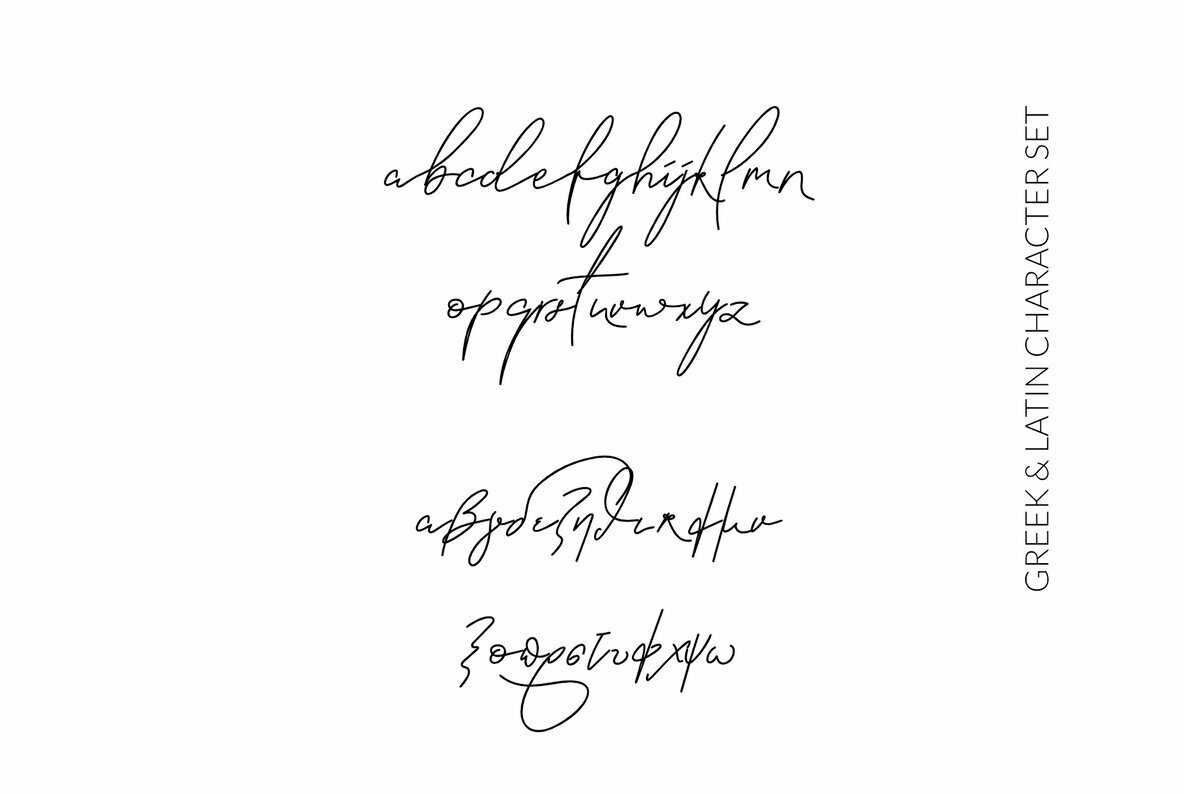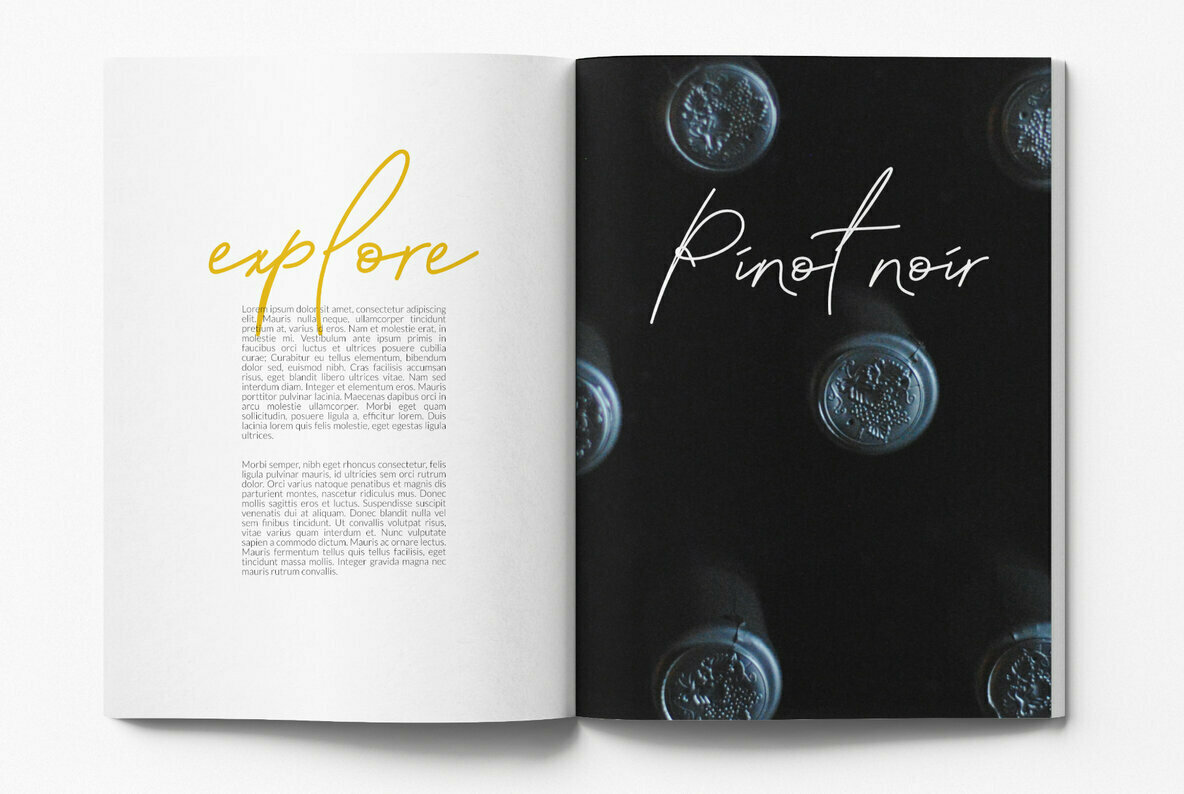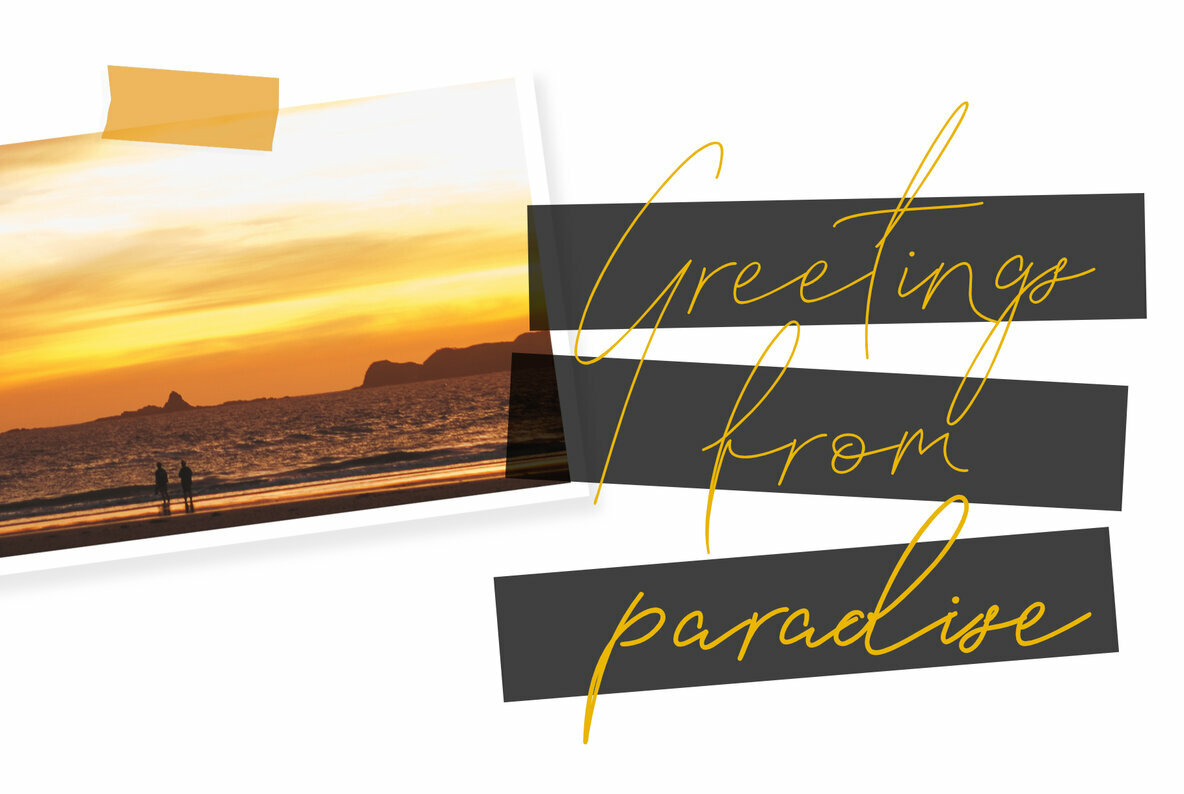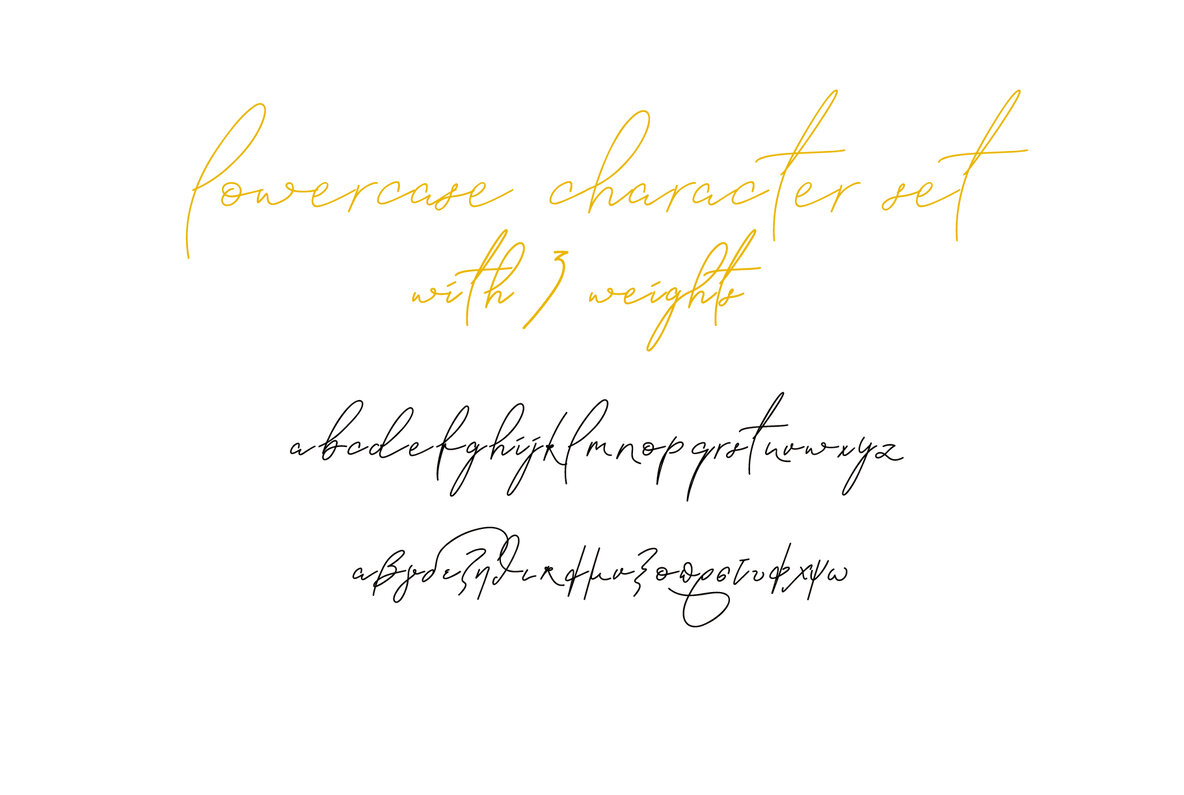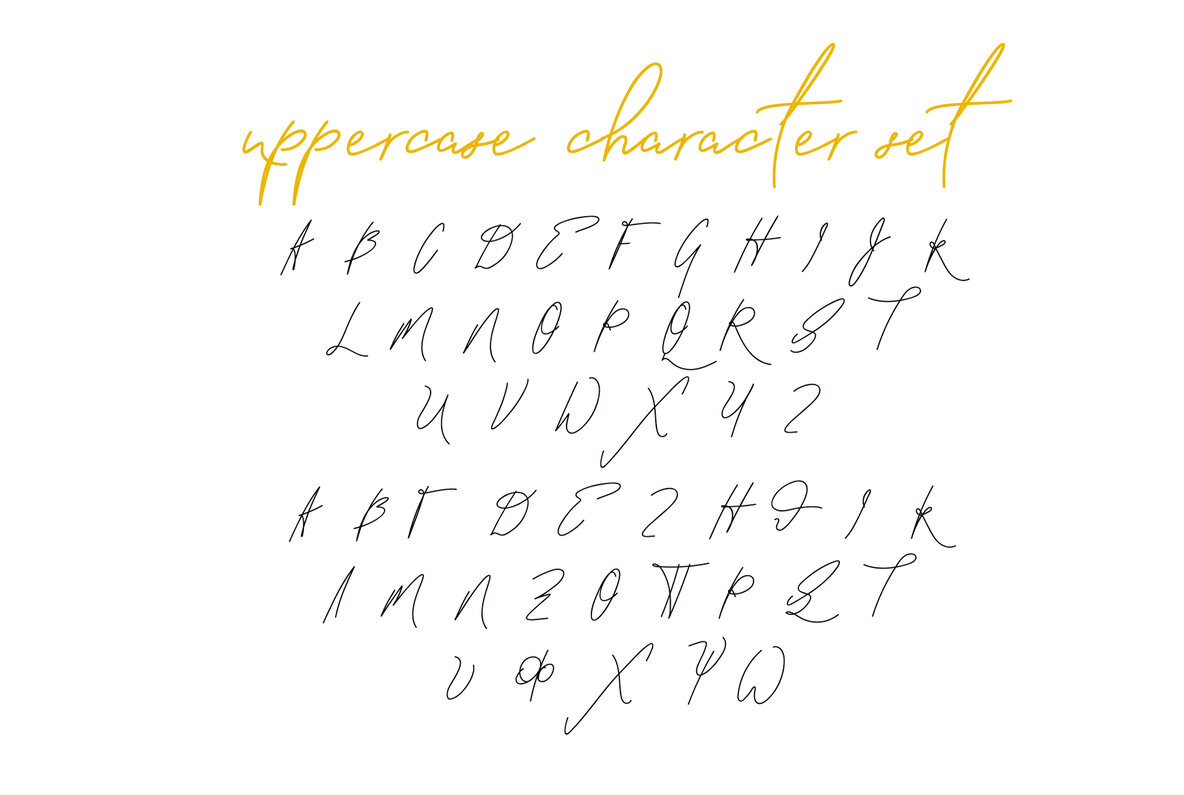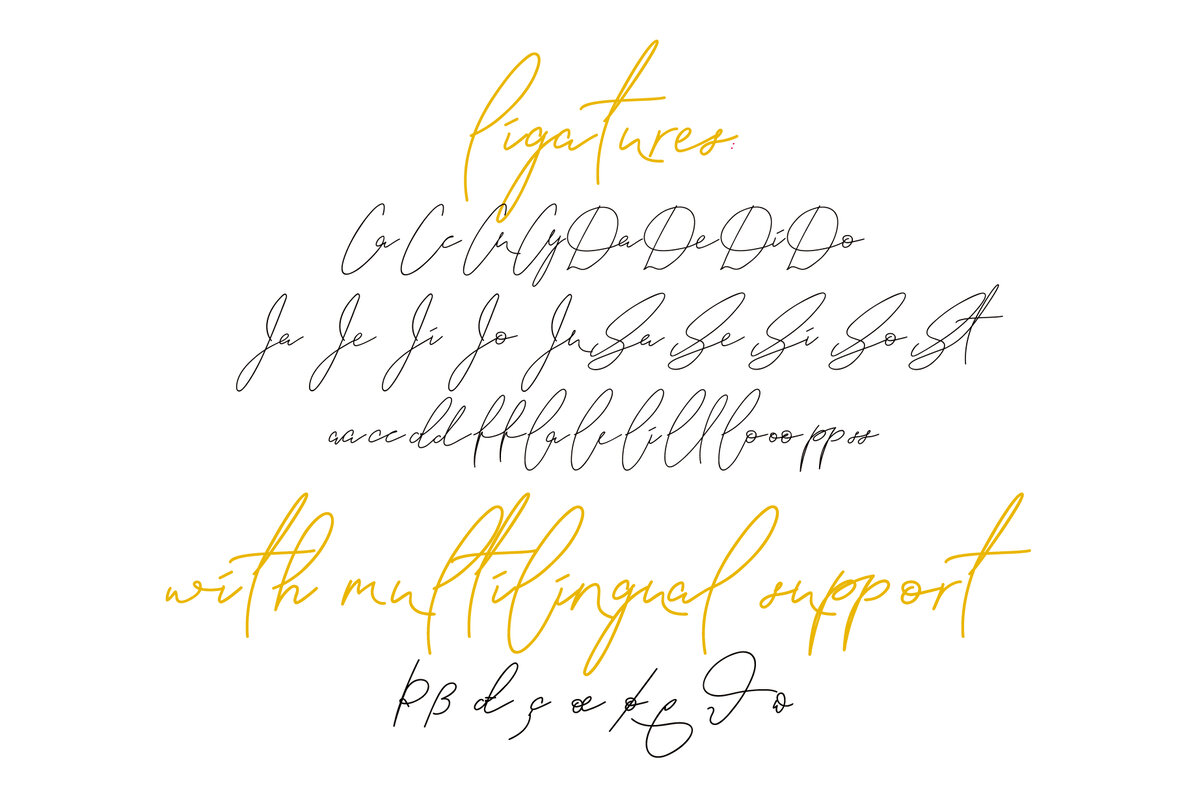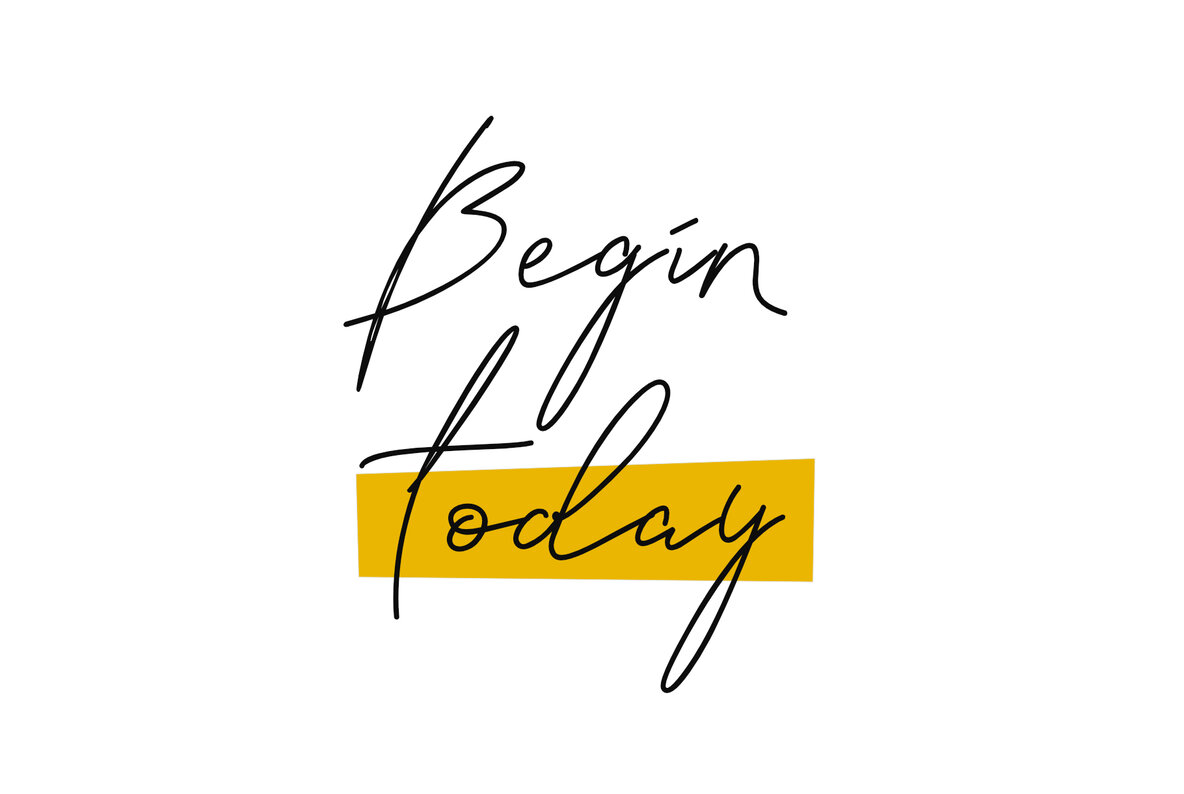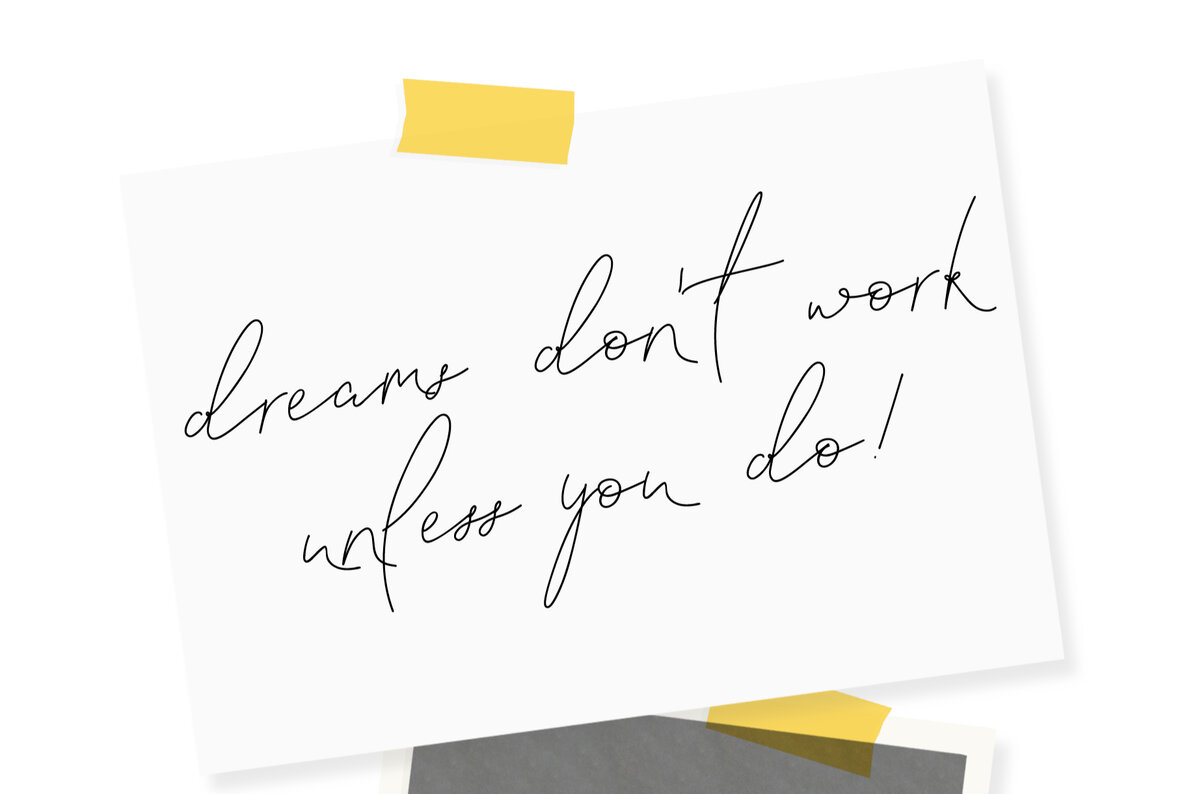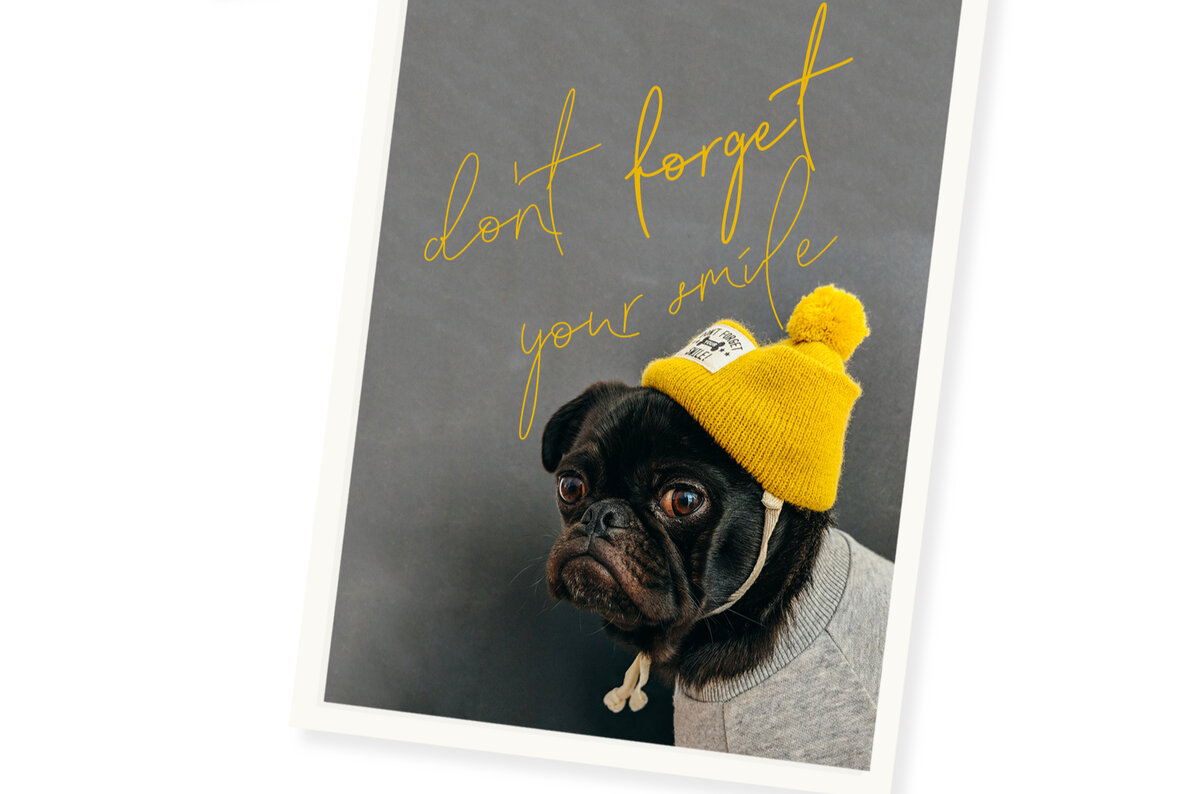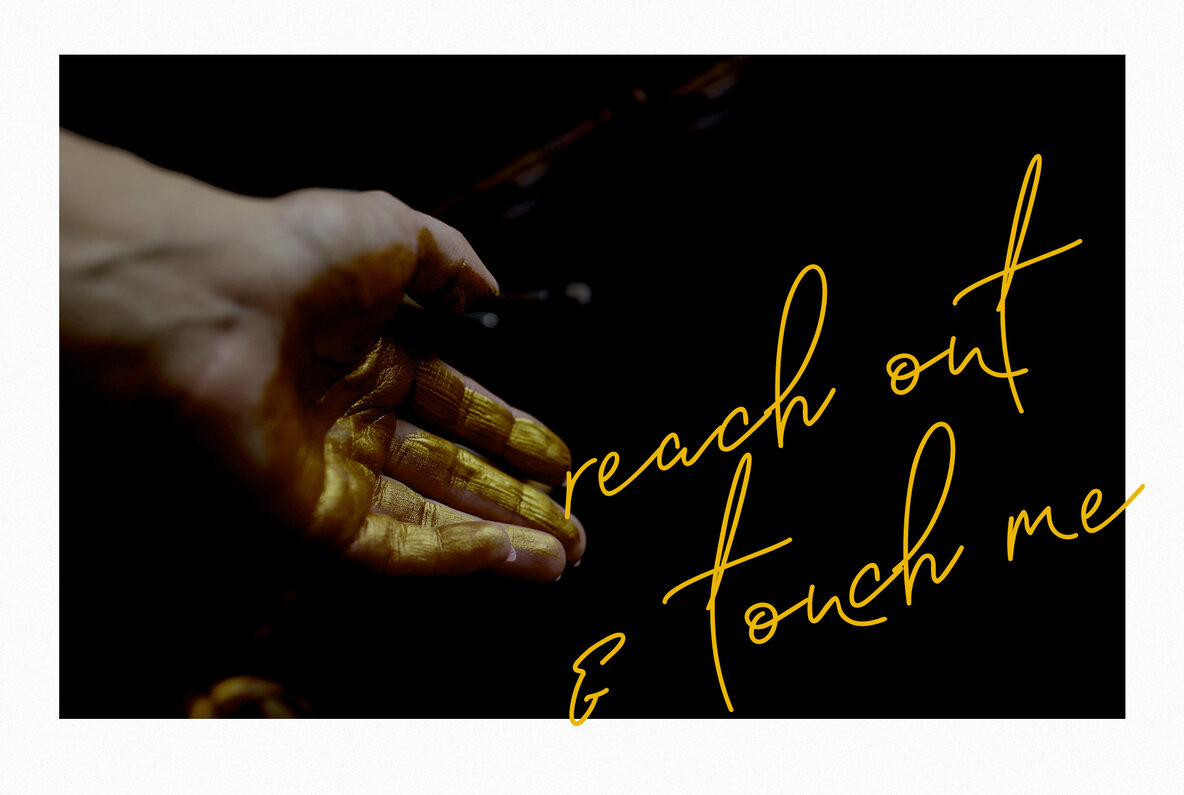
Blanc Seing Font
Blanc Seing emerges as a sophisticated signature decorative font, crafted thoughtfully in three versatile weights. This font not only captures the essence of handwritten lettering but also embodies a multilingual approach, featuring Greek, Latin characters, and diacritics. Its design offers a graceful flow that enhances any text, providing a personalized touch suitable for a plethora of modern graphic design applications. The appeal of Blanc Seing extends to various creative uses—from infusing a personal flair into social media posts or packaging to setting a romantic tone in wedding invitations. Additionally, it stands as an excellent choice for branding organic products, enhancing their natural allure. For those curating content for Instagram or other social platforms, this typeface is a discerning selection.Blanc Seing: A Decorative Signature Typeface
- Improved kerning
- Ligatures added